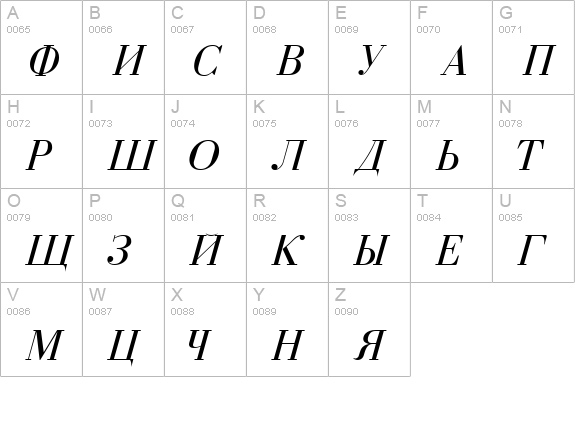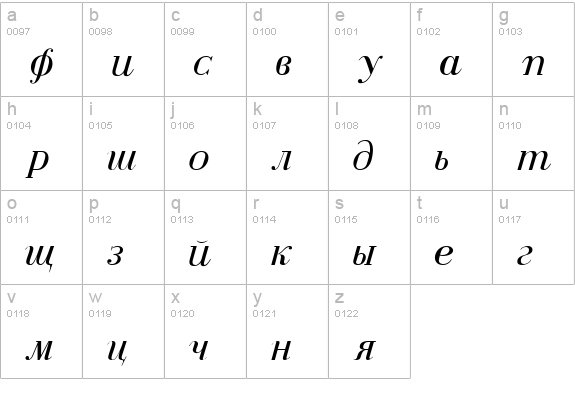
Dearborn Normal-Italic Font Details
Dearborn Normal-Italic is the standard, neutral, italic variant in the Dearborn typeface family \xE2\x80\x94 well suited to general body text, paragraphs, and standard typographic work.
Dearborn Normal-Italic font is a stylish and elegant typeface that exudes sophistication and class. With its sleek design and unique italicized form, this font is perfect for adding a touch of refinement to any project. Whether used for headlines, body text, or branding materials, Dearborn Normal-Italic font is sure to make a statement. The best part? Dearborn Normal-Italic font is completely free to download at FontsMarket.com. Simply visit the website and start using this exquisite font in your designs today. Don't miss out on the opportunity to elevate your projects with this beautiful typeface that is both versatile and eye-catching. Download Dearborn Normal-Italic font now and let your creativity shine!